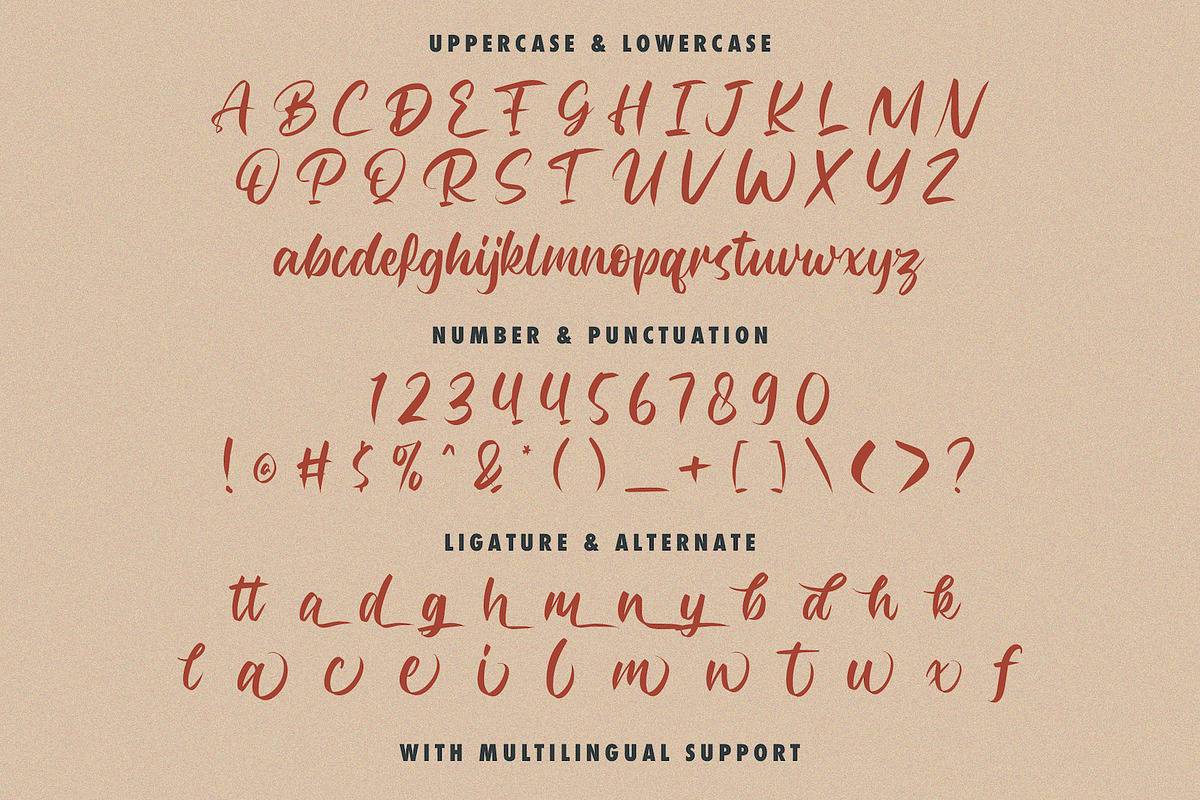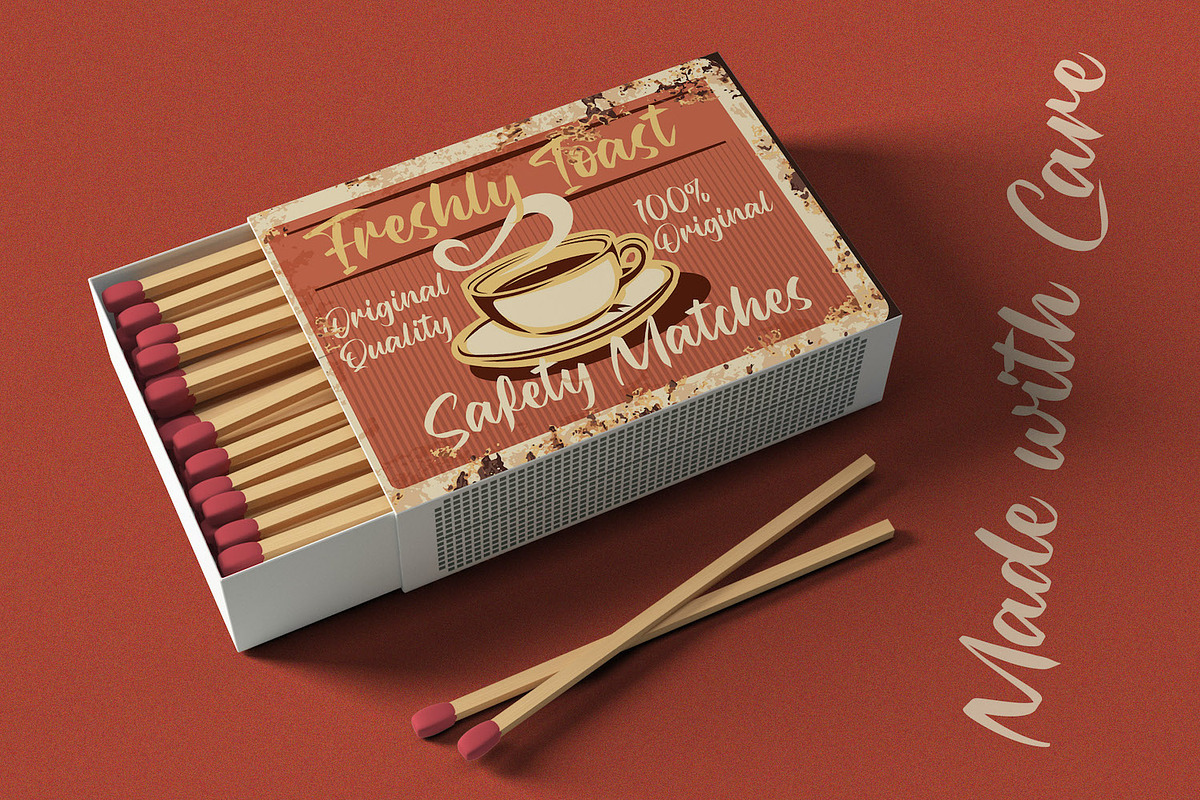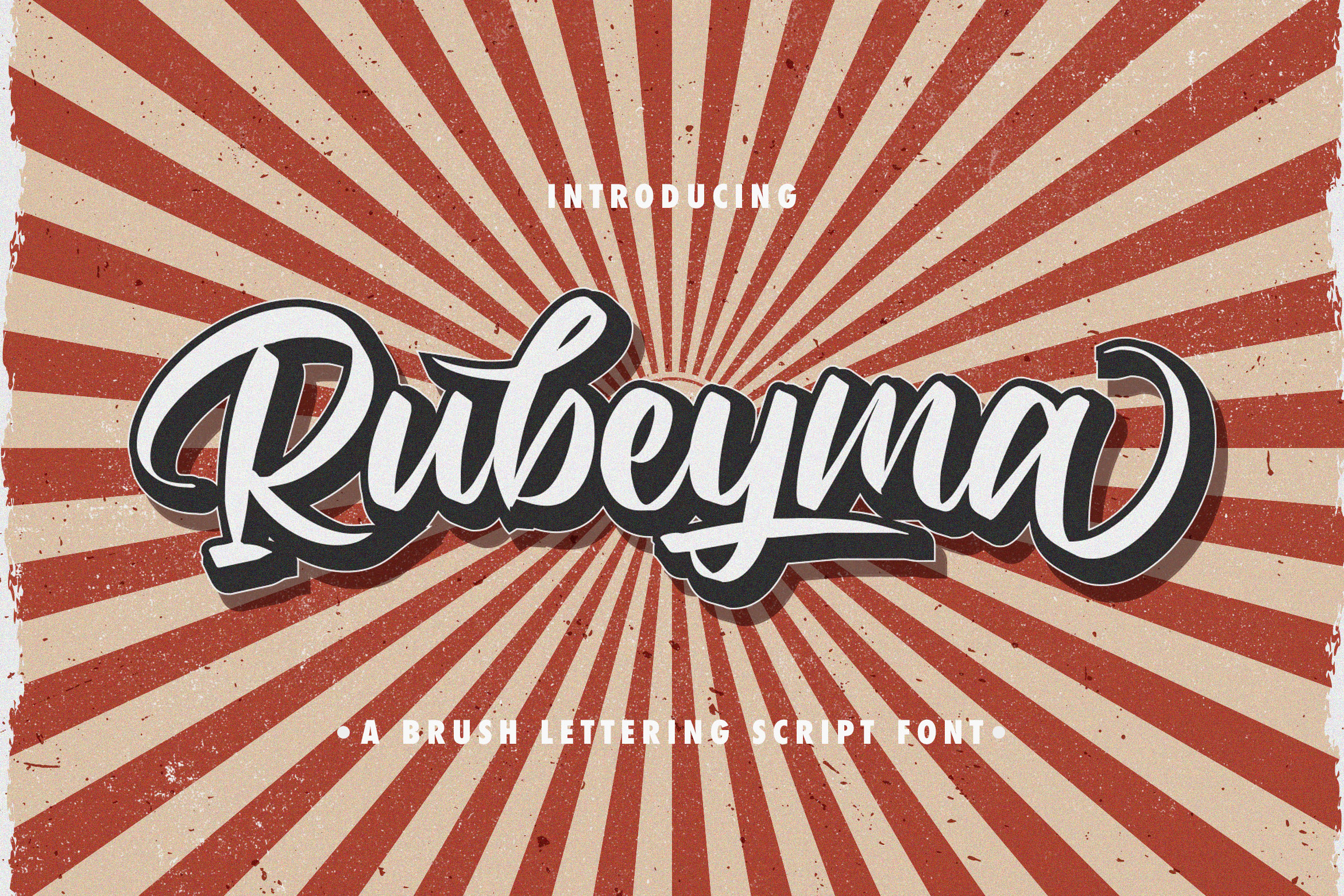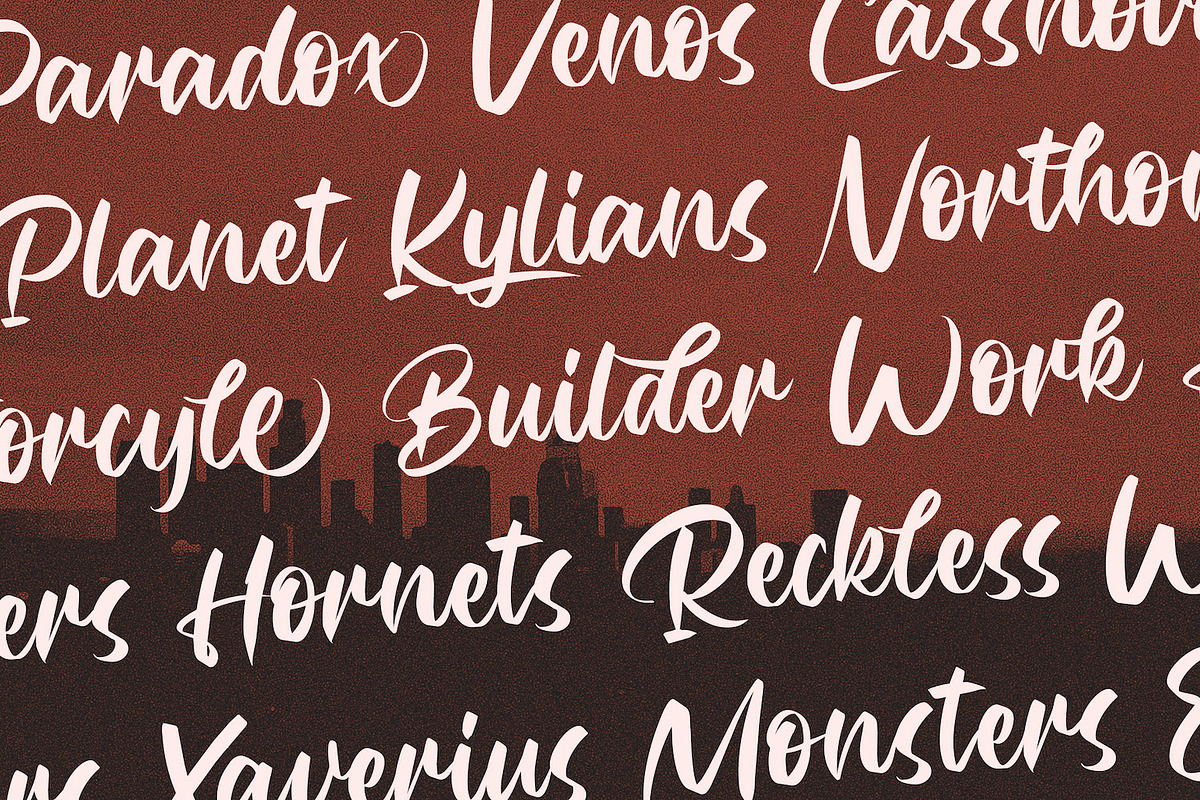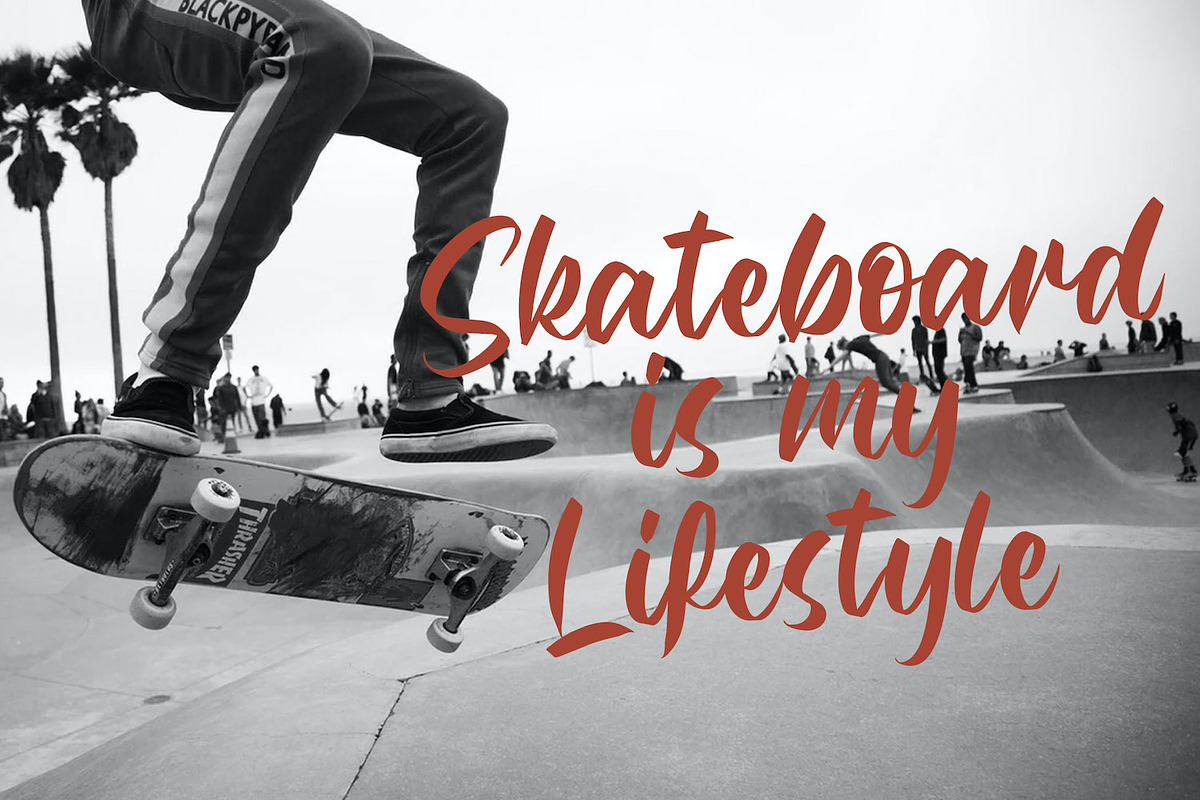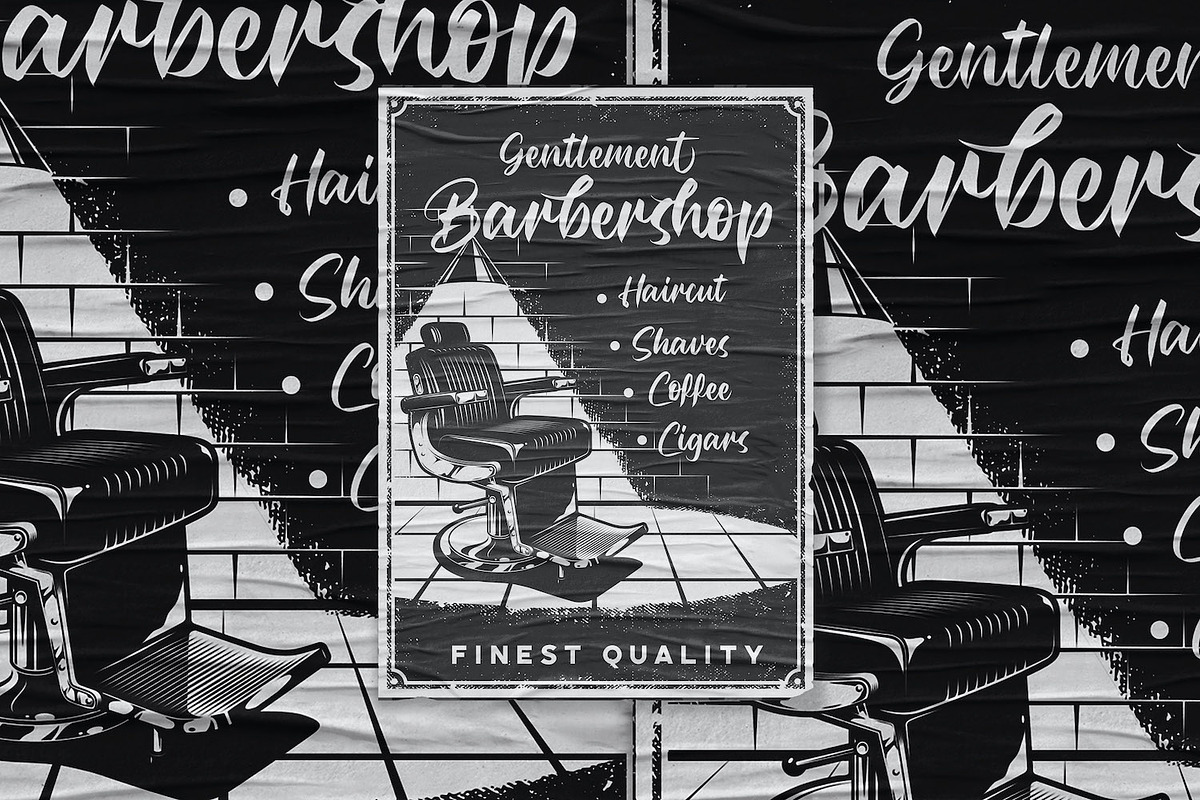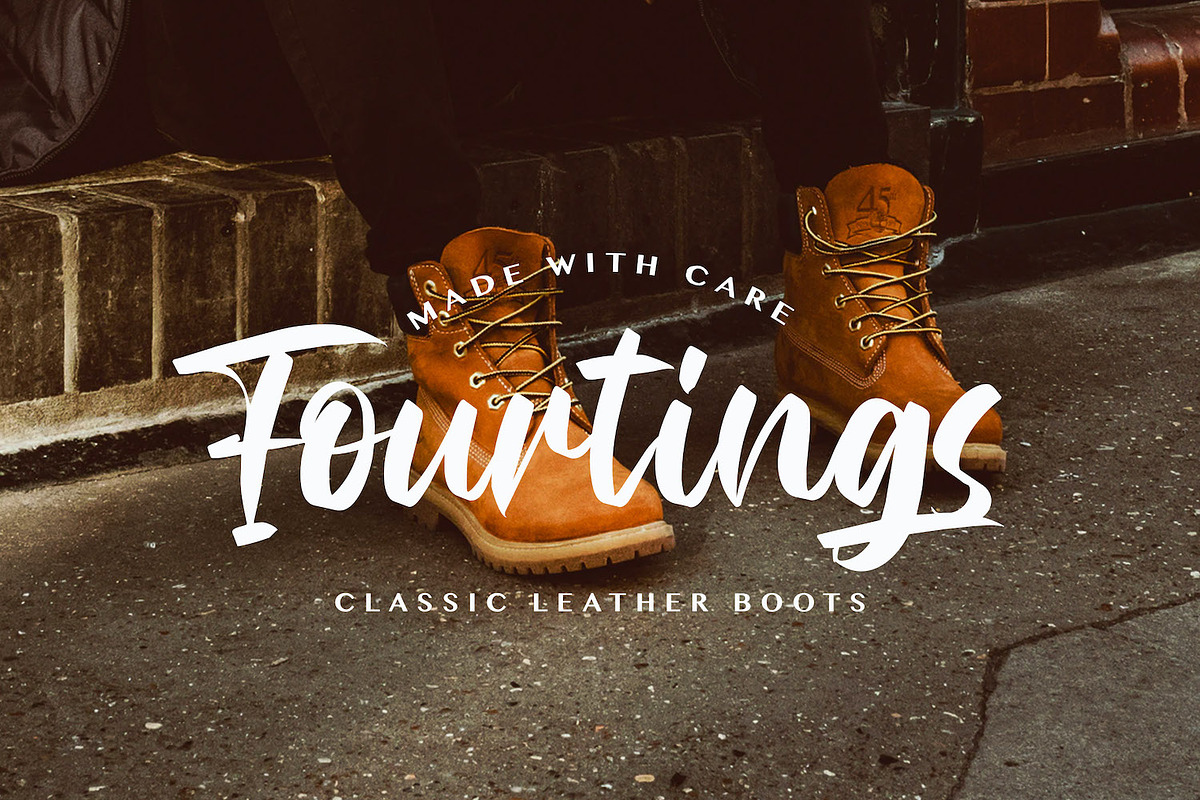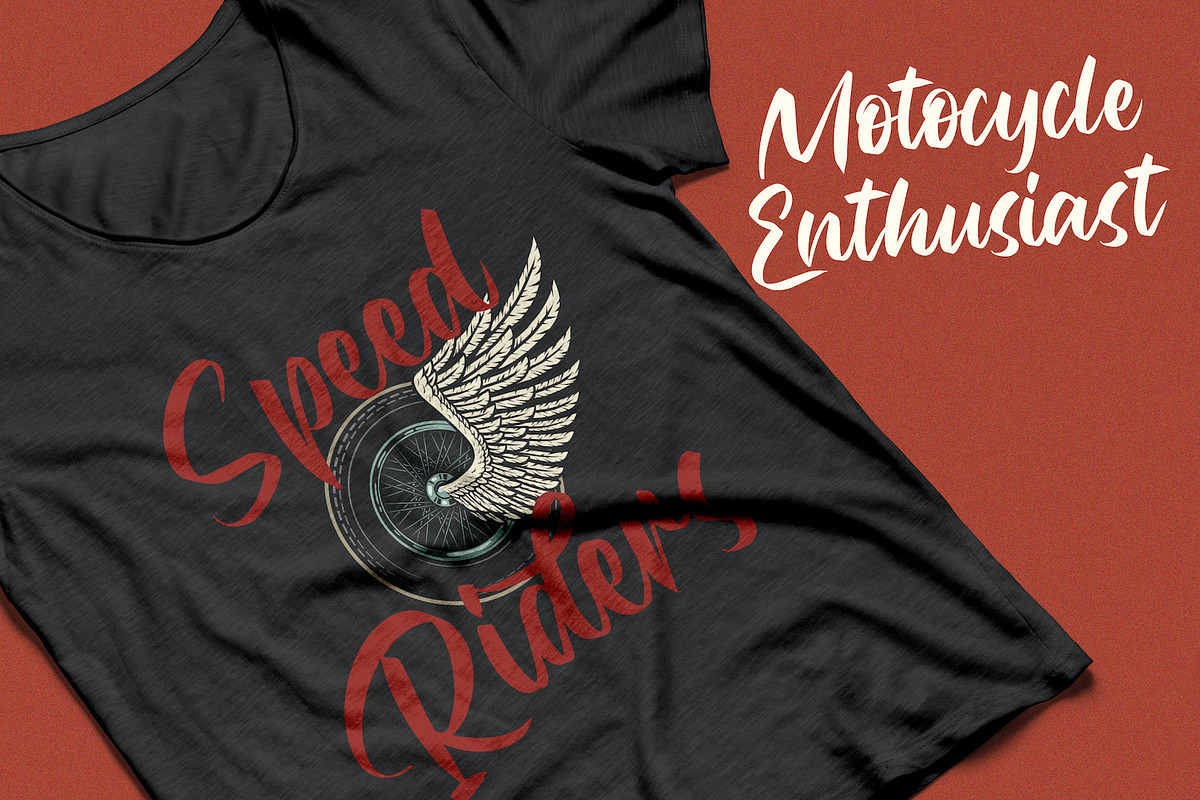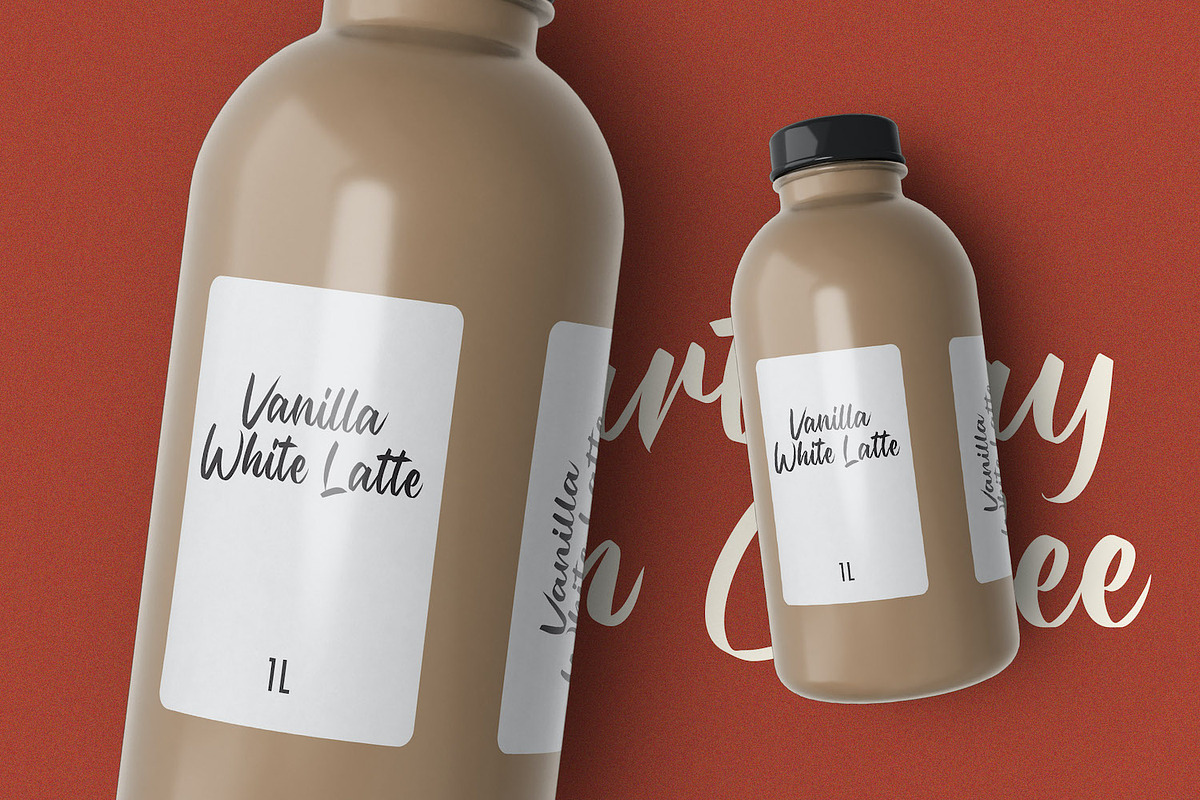
Rubeyma - Bold Script Font
Introducing Rubeyma - Bold Script Font
Rubeyma is a strong and bold script font. It is curved, rounded, and has an unique vintage style, that is perfect for branding. Add it to your most creative ideas and notice how it makes them come alive!